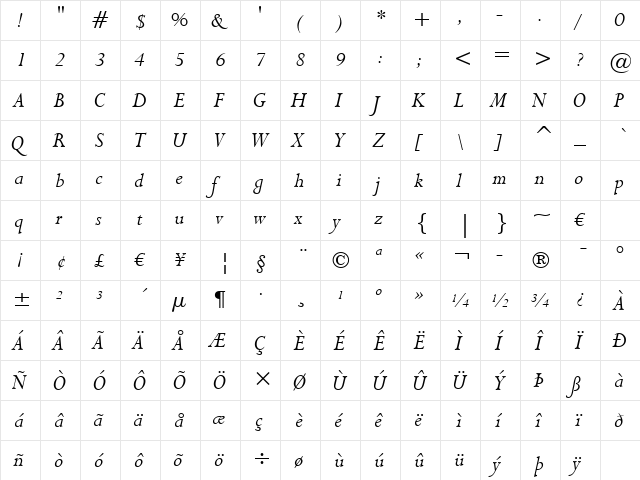
Lapidary333 BT Italic
Design Context for Lapidary333 BT Typeface
Lapidary333 BT is a composed and adaptable typeface that performs quietly and consistently across a wide range of design contexts. The dynamic lean of this cut emphasises speed and emphasis in any layout.
Pro Tip: Try Lapidary333 BT for annotation and caption copy alongside an upright companion — the contrast in angle creates a dynamic but ordered typographic system.